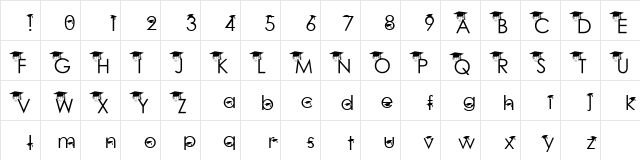
Baby Geniuses Regular
Design Context for Baby Geniuses
Baby Geniuses is a composed and adaptable typeface that performs quietly and consistently across a wide range of design contexts.